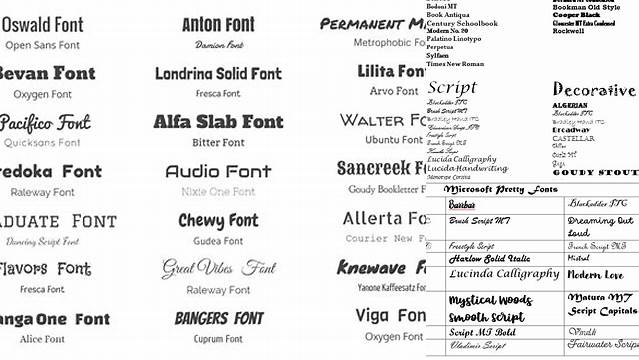
Microsoft Fonts List: The Ultimate Guide For 2024
Hey guys! Ever wondered about the amazing world of fonts available in Microsoft products? Whether you're crafting a professional document, designing a stunning presentation, or just want to spice up your emails, choosing the right font can make all the difference. In this comprehensive guide, we'll dive deep into the Microsoft fonts list, exploring the most popular, versatile, and unique typefaces that come standard with Microsoft Office and Windows. We’ll also cover how to use them effectively and answer some frequently asked questions. So, buckle up and let’s get font-astic!
Diving into the World of Microsoft Fonts
When it comes to typography, Microsoft fonts offer a vast and varied landscape to explore. From the classic and professional to the modern and whimsical, there’s a font for every occasion and every personality. Understanding the types of fonts available and their best uses can significantly enhance the visual appeal and readability of your documents. This section will walk you through some of the most commonly used and highly regarded fonts in the Microsoft ecosystem. We'll break down their characteristics, ideal applications, and why they've become staples in the world of digital communication. Whether you're a seasoned designer or a casual user, knowing your fonts is key to creating impactful content.
Serif Fonts: The Timeless Classics
Serif fonts, characterized by the small decorative strokes (or serifs) at the end of each character, are often associated with tradition, authority, and readability. These fonts are ideal for body text in books, newspapers, and formal documents. Times New Roman, perhaps the most recognizable serif font, is a classic choice for academic papers and professional reports. Its clean lines and balanced proportions make it highly readable in large blocks of text. Another popular serif font is Georgia, which was designed specifically for on-screen readability. Georgia's generous letter spacing and clear forms make it an excellent choice for websites and digital publications. Garamond, with its elegant and slightly old-fashioned feel, is perfect for adding a touch of sophistication to your documents. It’s often used in book printing and high-end publications. These serif fonts, along with others like Book Antiqua and Palatino Linotype, provide a solid foundation for creating documents that are both professional and easy to read. The key to effectively using serif fonts lies in understanding their inherent formality and readability, ensuring they align with the overall tone and purpose of your content. When you're aiming for a polished and trustworthy look, serif fonts are your go-to choice.
Sans-Serif Fonts: Modern and Minimalist
Sans-serif fonts, which lack the decorative strokes found in serif fonts, are known for their clean, modern, and minimalist appearance. These fonts are often preferred for headlines, titles, and on-screen reading due to their clarity and simplicity. Arial, one of the most widely used fonts in the world, is a versatile sans-serif that works well in a variety of contexts. Its straightforward design makes it an excellent choice for body text, headings, and captions. Calibri, the default font in Microsoft Office, is another popular sans-serif known for its smooth lines and contemporary feel. Calibri's rounded terminals give it a friendly and approachable vibe, making it suitable for both professional and casual communications. Helvetica, a Swiss-designed font, is a true classic in the world of typography. Its clean and neutral design makes it incredibly versatile, and it’s often used in corporate branding and signage. Other notable sans-serif fonts include Verdana, designed specifically for on-screen readability, and Segoe UI, the default font for Windows operating systems. When choosing a sans-serif font, consider the overall tone and purpose of your document. These fonts are ideal for conveying a sense of modernity, clarity, and simplicity. Whether you're designing a website, creating a presentation, or writing a report, sans-serif fonts can help you achieve a clean and professional look.
Monospace Fonts: The Technical Choice
Monospace fonts, also known as fixed-width fonts, are characterized by each character occupying the same horizontal space. This unique characteristic makes them particularly well-suited for technical writing, coding, and situations where precise alignment is crucial. Courier New is perhaps the most well-known monospace font, often associated with typewriters and programming environments. Its uniform character width ensures that columns of text and code align perfectly, making it indispensable for displaying code snippets and technical documentation. Another popular monospace font is Consolas, which was designed specifically for programming. Consolas features clear and distinct letterforms, making it easy to differentiate between characters that might look similar in other fonts, such as the numeral 1 and the lowercase letter l. Lucida Console is another reliable monospace option, often used in command-line interfaces and terminal emulators. While monospace fonts may not be the most visually appealing for general text, their practicality and precision make them essential tools for specific applications. If you're working with code, creating tables, or need to maintain strict alignment, monospace fonts are the way to go. They bring a level of clarity and organization that other font styles simply can't match.
Script and Decorative Fonts: Adding Flair and Personality
Script and decorative fonts are where you can really let your creativity shine. These fonts range from elegant and flowing scripts to bold and whimsical display faces, adding personality and flair to your designs. However, it's crucial to use them sparingly and strategically, as they can be less readable in large blocks of text. Brush Script MT is a classic script font that mimics the look of handwritten brushstrokes. It's perfect for invitations, greeting cards, and adding a personal touch to your documents. Segoe Script offers a more modern and legible script option, suitable for short messages and headings. For more decorative options, fonts like Comic Sans MS (love it or hate it!) and Impact can add a playful or attention-grabbing element to your designs. Kristen ITC is another fun and informal font that’s great for casual communications. When using script and decorative fonts, think about the overall tone and message you want to convey. These fonts are best used for headings, logos, and short phrases where you want to make a statement. Overusing them can detract from readability and make your design look cluttered. The key is to balance these expressive fonts with more neutral typefaces for body text, creating a harmonious and visually appealing design.
Top Microsoft Fonts for Different Uses
Choosing the right font can significantly impact the effectiveness of your communication. The best font for a formal report will differ greatly from the best font for a creative invitation. This section provides a guide to the top Microsoft fonts for various uses, helping you make informed decisions that align with your specific needs and goals. We'll cover fonts ideal for professional documents, presentations, websites, and more, giving you practical recommendations to enhance your projects.
Best Fonts for Professional Documents
For professional documents, such as reports, resumes, and business letters, clarity and readability are paramount. Serif fonts like Times New Roman, Georgia, and Garamond are excellent choices for body text, as their serifs guide the eye and enhance readability. Arial and Calibri are solid sans-serif options for headings and subheadings, providing a clean and modern contrast to the serif body text. When selecting fonts for professional documents, consider the overall tone and message you want to convey. A classic serif font can lend an air of authority and tradition, while a clean sans-serif font can project a sense of modernity and efficiency. Consistency is also key – stick to a maximum of two fonts (one for headings and one for body text) to maintain a polished and cohesive look. Avoid using overly decorative or script fonts, as they can detract from the document's professionalism. The goal is to create a document that is easy to read, visually appealing, and reflects your attention to detail. Choosing the right fonts is a crucial step in achieving that goal.
Best Fonts for Presentations
Presentations demand fonts that are not only legible but also visually engaging. Arial and Helvetica are popular choices for their clean and clear letterforms, ensuring that your message is easily readable from a distance. Segoe UI offers a modern and approachable feel, making it suitable for a variety of presentation styles. For headings and titles, consider using a slightly bolder font or a larger font size to create visual hierarchy and draw attention to key points. While sans-serif fonts generally work best for on-screen presentations, you can incorporate serif fonts like Georgia or Garamond sparingly to add a touch of elegance or contrast. Avoid using fonts that are too thin or too decorative, as they can be difficult to read on a projector screen. Consistency is crucial in presentations – stick to a limited palette of fonts (two or three at most) to maintain a cohesive and professional look. Using too many fonts can distract your audience and detract from your message. The right font choices can enhance your presentation's visual impact and help you deliver a compelling message.
Best Fonts for Websites
Choosing the best fonts for websites involves balancing aesthetics with readability and performance. Arial and Verdana are widely considered web-safe fonts, meaning they are likely to be pre-installed on most users' computers, ensuring consistency across different devices and browsers. Helvetica and Open Sans are also popular choices, offering a clean and modern look that works well for both headings and body text. When selecting fonts for your website, consider the overall design and branding. A serif font like Georgia can add a touch of tradition and sophistication, while a sans-serif font like Roboto can convey a sense of modernity and simplicity. Pay attention to font size and line spacing to ensure optimal readability, especially on mobile devices. Avoid using overly decorative or script fonts for large blocks of text, as they can be difficult to read on screen. Consider using font pairing to create visual interest and hierarchy. Combining a bold heading font with a more readable body font can enhance the user experience and make your content more engaging. Ultimately, the best fonts for your website will be those that align with your brand, enhance readability, and provide a seamless user experience.
Conclusion: The Font-tastic World of Microsoft
So there you have it, guys! A deep dive into the world of Microsoft fonts. We've explored the different types of fonts, their best uses, and how to use them effectively. Whether you're crafting a professional document, designing a stunning presentation, or simply want to add a personal touch to your emails, understanding your font options is key. Remember, the right font can make all the difference in how your message is received. So, go ahead, experiment with different typefaces, and unleash your inner font enthusiast! Happy designing!